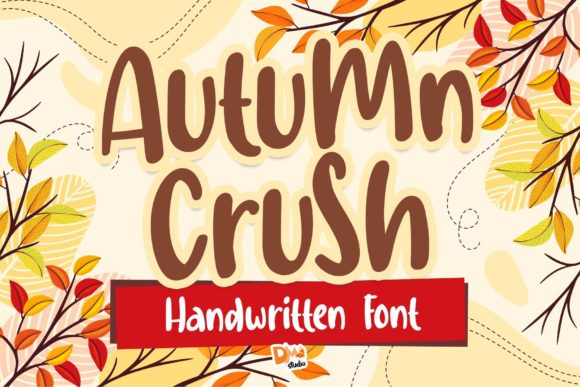
The Ultimate Font for Your Creative Projects: Autumn Crush
As a designer, I’m always on the lookout for the perfect font to elevate my projects. I recall working on a fall-themed branding project last year, struggling to find a font that captured the essence of the season. That’s when I stumbled upon Autumn Crush, a chic and trendy handwritten font that instantly became my go-to. In this article, I’ll share my experience with Autumn Crush, its features, and how to make the most of it in your creative endeavors.
A Personal Review of Autumn Crush
So, what makes Autumn Crush a wonderful asset to your font library? Let’s dive into the details.
What I Love About Autumn Crush
- ✨ Unique and eye-catching design: Autumn Crush boasts a distinctive, hand-crafted look that’s perfect for making a statement in your designs.
- ✅ Versatility: This font is suitable for a wide range of projects, from branding and advertising to crafting and DIY tutorials.
- 💡 Easy to read: Despite its creative flair, Autumn Crush remains highly legible, even at smaller font sizes.
- 🎨 OpenType features: This font comes with a range of OpenType features, including glyphs and stylistic alternates, to help you add extra personality to your text.
While Autumn Crush is an excellent font, there are a few minor considerations to keep in mind:
- 🤔 Limited use in formal contexts: Due to its creative, handwritten nature, Autumn Crush might not be the best fit for very formal or traditional projects.
- ⚠️ Kerning issues at small sizes: As with any font, you may need to adjust kerning at very small font sizes to ensure optimal readability.
The Story Behind Autumn Crush
While the true story behind Autumn Crush remains a mystery, it’s easy to imagine that the designer was inspired by the cozy warmth of fall. Perhaps they wanted to create a font that captured the essence of crunchy leaves, warm lattes, and snuggly sweaters. Whatever the inspiration, Autumn Crush is a delightful addition to any font library.
Q: What type of projects is Autumn Crush best suited for?
A: Autumn Crush is versatile and can be used in a wide range of projects, from branding and advertising to crafting and DIY tutorials.